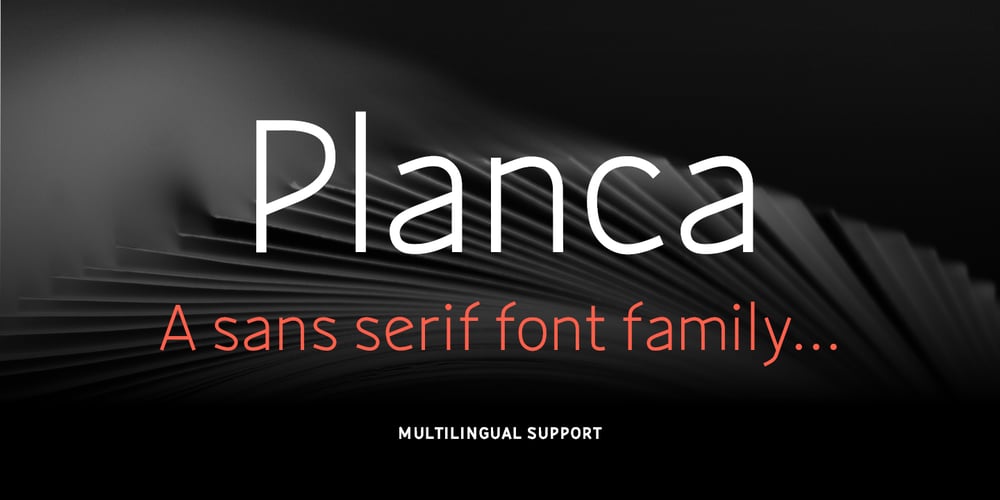
Planca Font Family was designed by Adam Ryszewski and published by Vertigo. Planca contains 3 styles and family package options. Planca is a sans serif typeface with medium contrast and distorted rhythm of the line. Spaced and mastered for optimal readability. All lines are of equal thickness. Its morphology is based on the study of traditional writing with a wide tip stick. It comes in 4 different weights (Light, Regular, Bold and Black) and provide multilingual support.